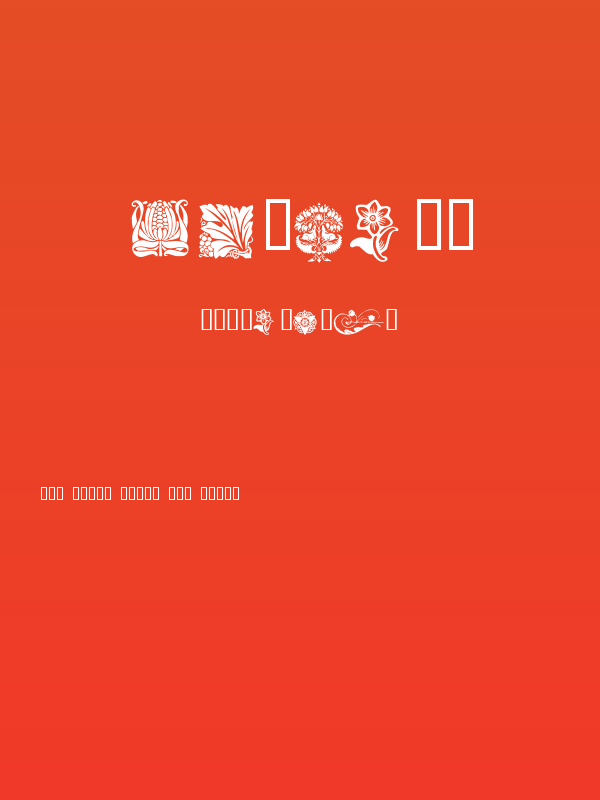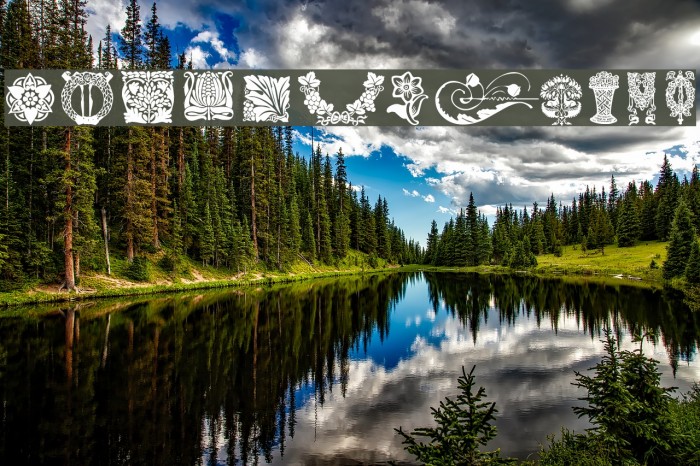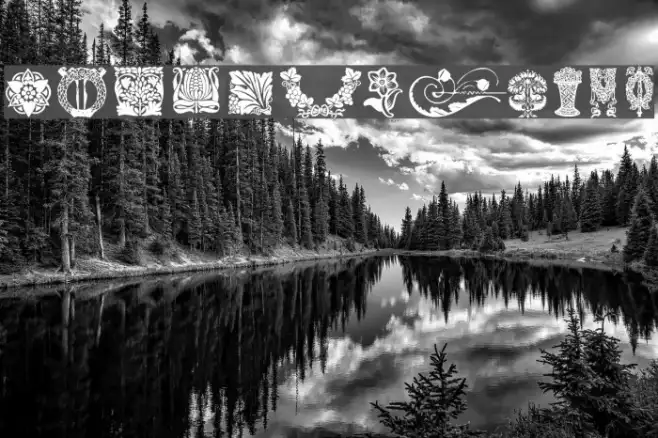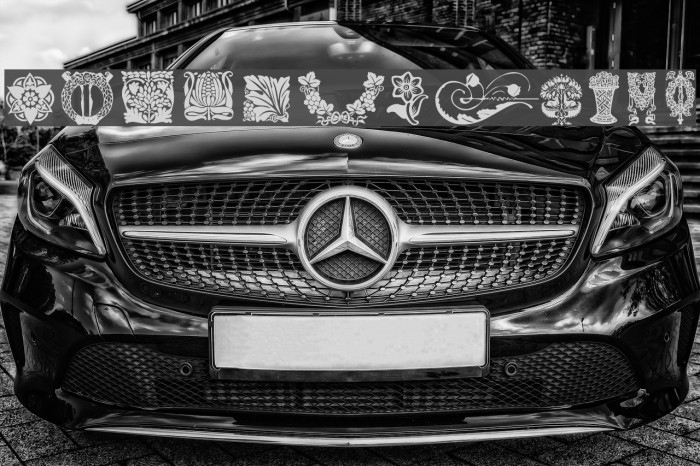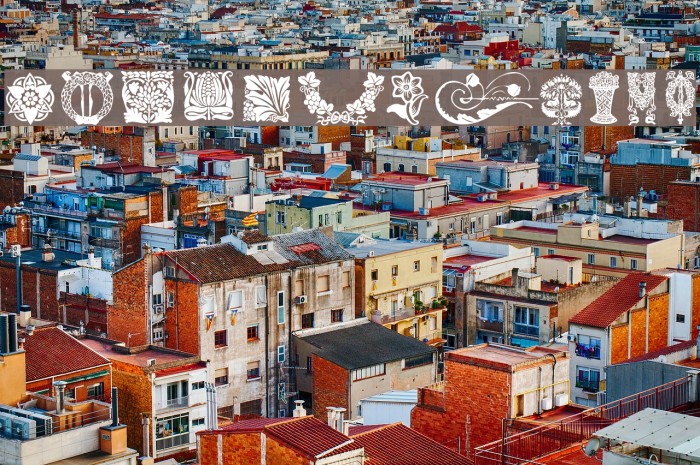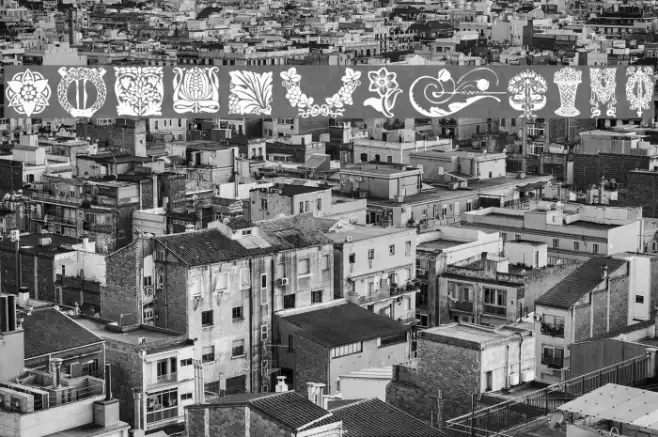
Design4 Font
Design4 Description
This design is not a traditional font but rather a collection of decorative elements and frames. Each character space is filled with intricate floral and ornamental designs, making it unsuitable for standard text representation. The elements are highly detailed, featuring floral motifs and abstract shapes, which can be used as decorative accents or borders in design projects.
| Use Case | Decorative elements, Borders, Accents |
| Proposed Projects | Ideal for use in decorative projects such as invitations, greeting cards, or as ornamental borders in graphic design. |